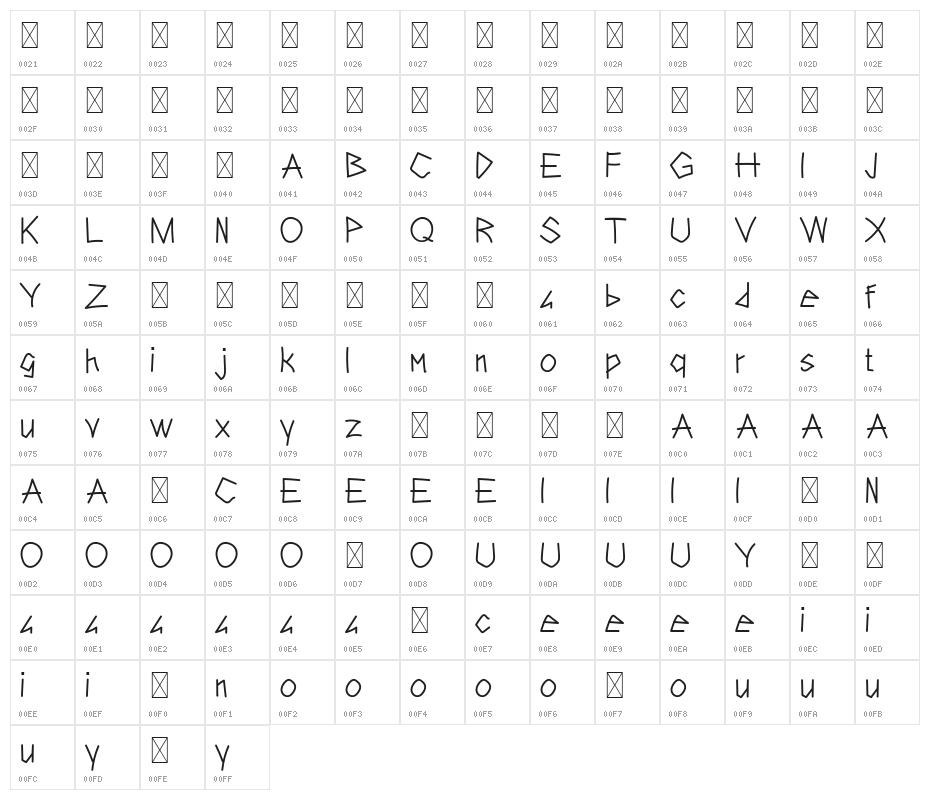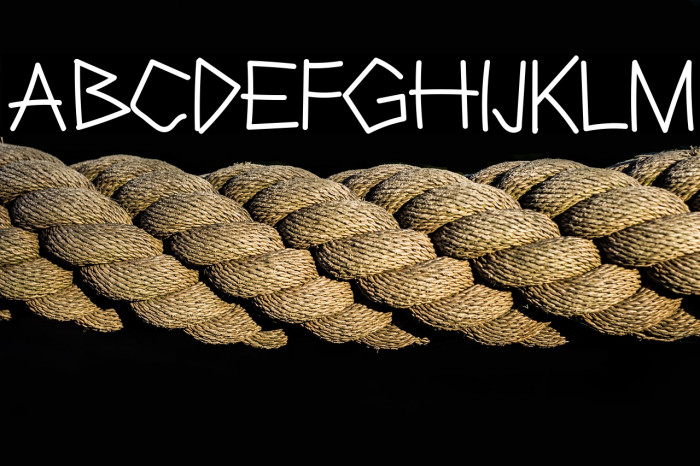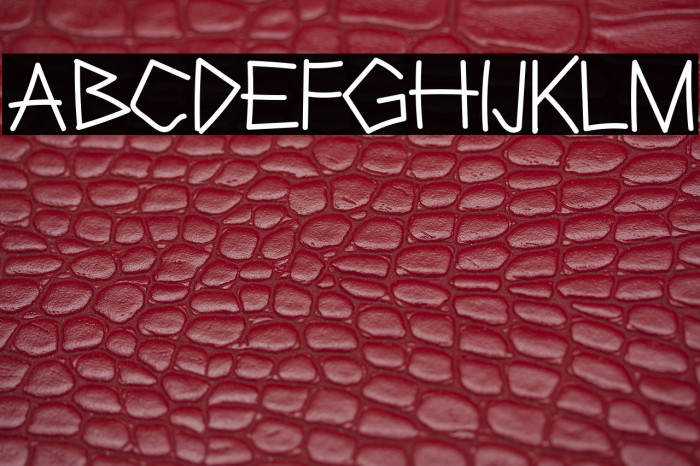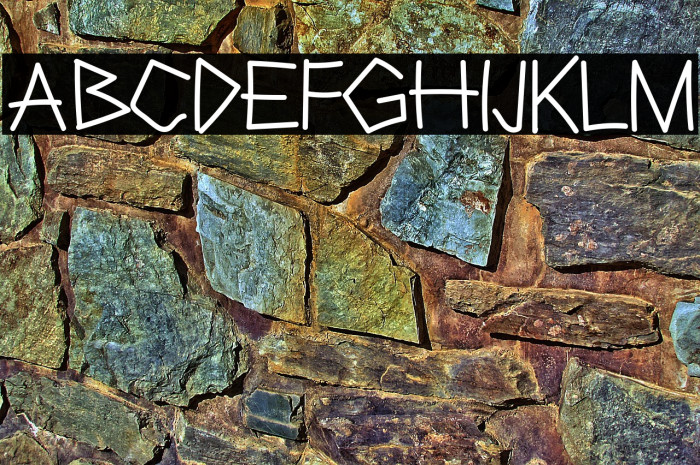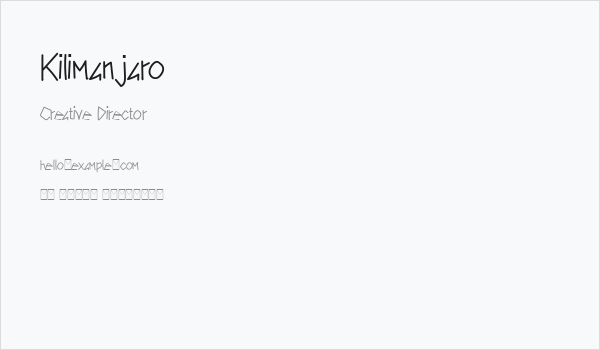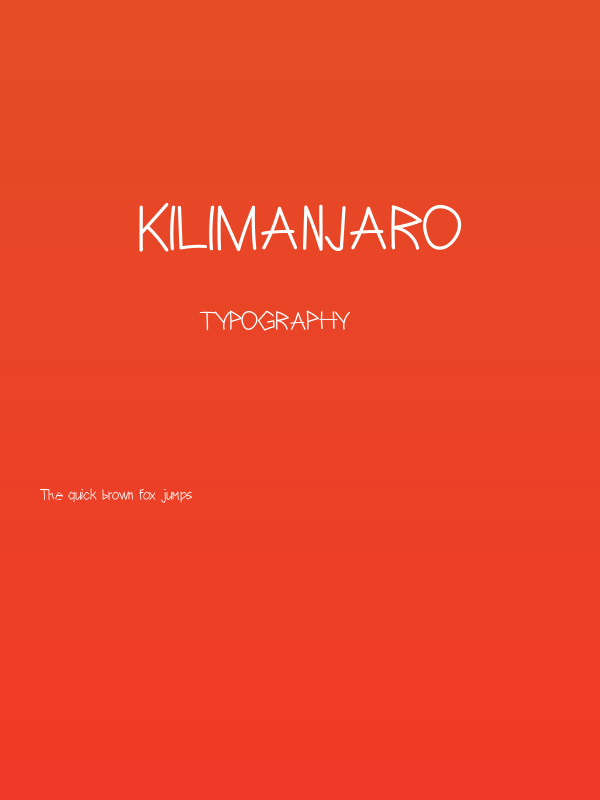
Kilimanjaro Font
Kilimanjaro Description
This font features a playful and casual handwritten style, characterized by its irregular strokes and slightly uneven baseline. The letters have a whimsical, almost childlike quality, with varying stroke widths that add to its informal appearance. The uppercase and lowercase letters maintain a consistent style, with rounded edges and a slightly tilted orientation, giving the font a dynamic and lively feel. The absence of special characters suggests a focus on simplicity and ease of reading, making it suitable for projects that require a friendly and approachable aesthetic.
| Use Case | Headlines, Informal text, Branding |
| Proposed Projects | Ideal for children's books, casual invitations, greeting cards, and playful branding. |